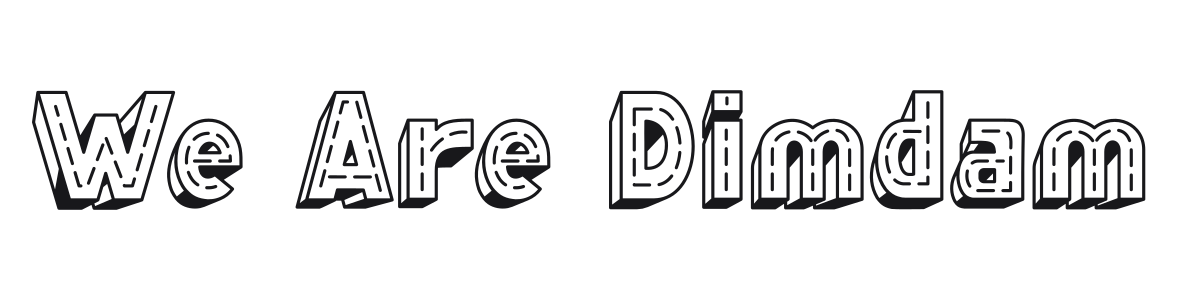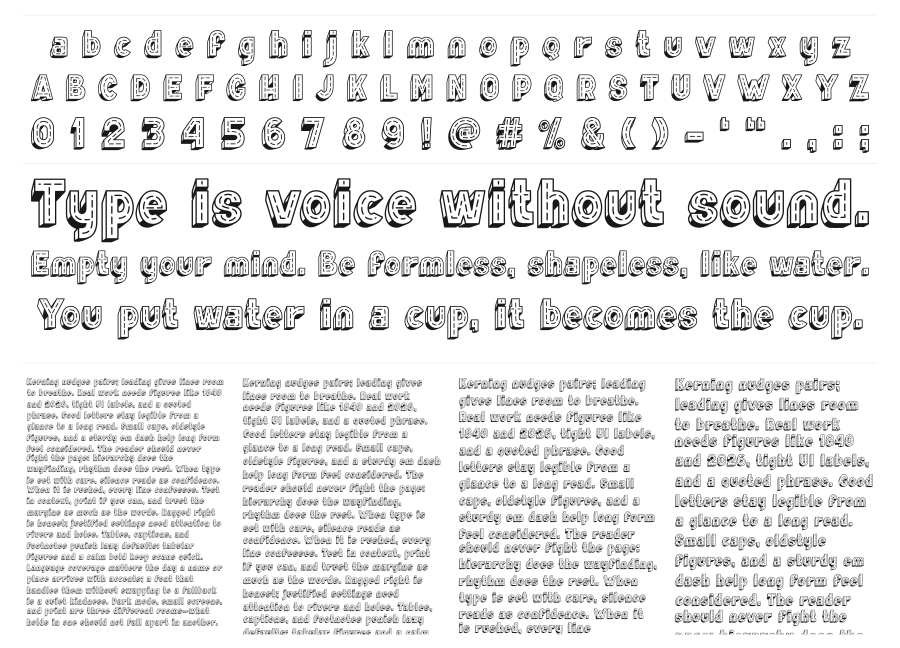
We Are Dimdam
We Are Dimdam is a chunky retro rounded display font with a layered 3D outline-and-shadow construction. Each character stacks an inner inline detail over a thick outer shadow, creating bold dimensional depth straight out of 1970s pop culture. It brings an immediate sense of fun and nostalgia to posters, packaging, and casual branding.